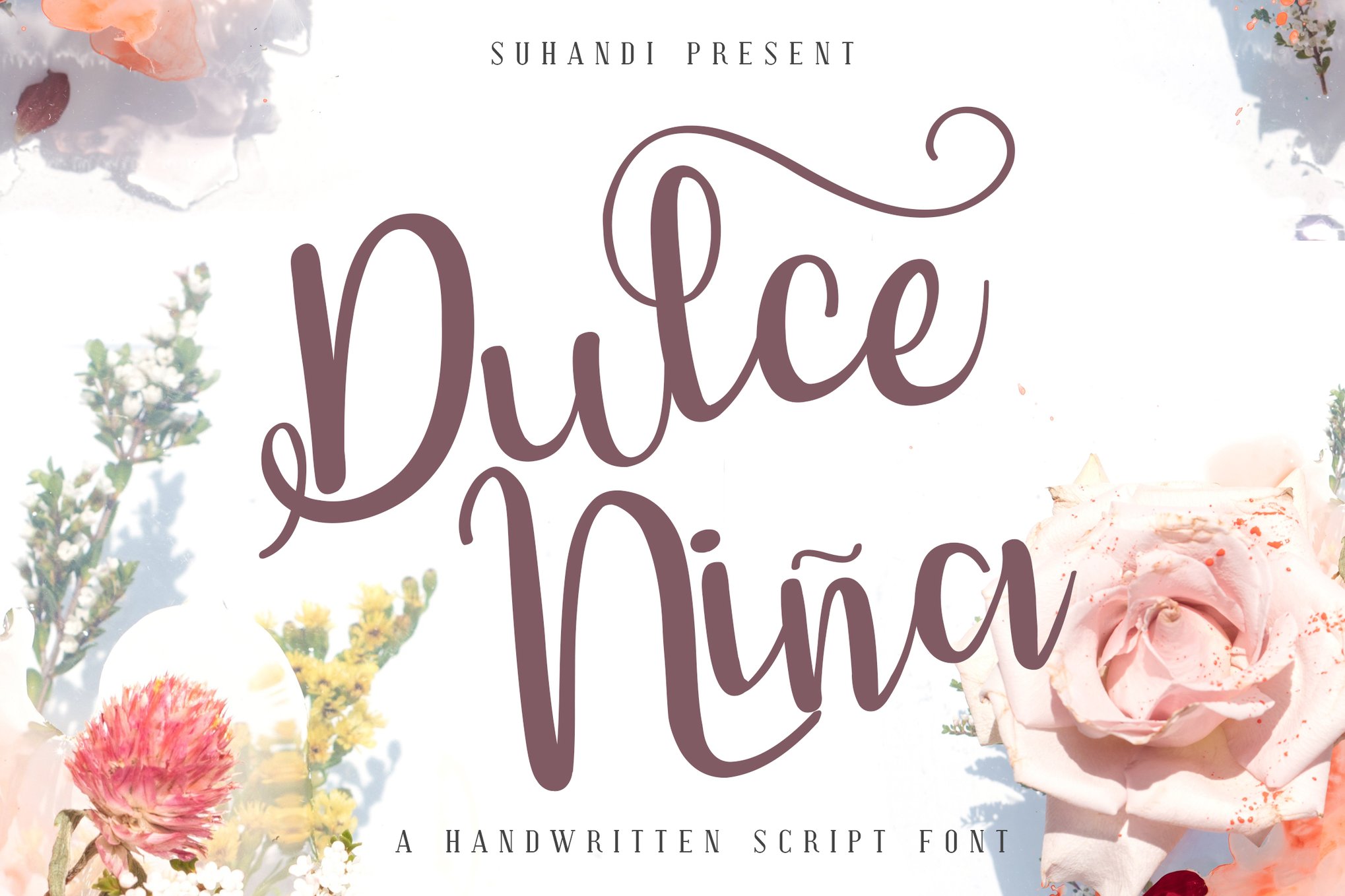
Dulce Nina Script Font
Dulce Nina Script Font is perfect for various design applications including sweet bakery branding, confectionery shop signage, candy store logos, dessert cafe menus, children's party invitations, sweet sixteen celebrations, feminine lifestyle brands, sugar craft workshop materials, delicate wedding stationery, and charming boutique communications. This delightful typeface excels in projects requiring sweetness and feminine charm that captures the irresistible appeal of confectionery delights and the tender elegance of feminine celebrations.
What makes Dulce Nina Script Font so exciting is its enchanting embodiment of sweetness and feminine grace through flowing script letterforms that suggest delicate sugar work and the tender artistry of confectionery craftsmanship. The font features graceful flowing curves that mirror ribbon candy and delicate frosting swirls, elegant proportions that communicate sweetness and feminine sophistication, and distinctive character details that evoke hand-piped decorations and the careful artistry of pastry chefs. Its distinctive sweet character and feminine appeal make it perfect for confectionery brands seeking to communicate indulgence, charm, and the irresistible allure of sweet treats and feminine elegance.
Dulce Nina Script Font family includes delicate script weights and sweet variations that enhance its versatility for different confectionery applications. Each style maintains the font's signature sweet character while providing options for various feminine design approaches. The family also features confectionery decorative elements, sweet flourishes, and delicate ornaments that can be combined with the letterforms to create cohesive sweet treat design systems.
Whether you're developing confectionery brands, sweet celebration services, or feminine lifestyle communications, Dulce Nina Script Font Free Download provides delightful typography that sweetens every message and celebrates the irresistible charm of confectionery artistry and feminine elegance. This typeface transforms ordinary communications into sweet expressions that promise delicious treats and charming experiences. The font's sweet appeal makes it particularly effective for bakeries, candy shops, and feminine brands targeting audiences who appreciate confectionery delights and sweet feminine charm.
Dulce Nina Script Font stands out by delivering authentic sweetness that feels genuinely delightful rather than artificially cute or overly saccharine. Its carefully crafted sweet proportions and confectionery details ensure that designs feel authentically connected to real confectionery traditions while maintaining sophisticated feminine appeal. From bakery branding to sweet celebration materials, this font provides designers with tools to create communications that celebrate confectionery artistry and inspire appreciation for sweet treats through elegant, sugar-inspired script typography that's simply irresistible and perfectly sweet.